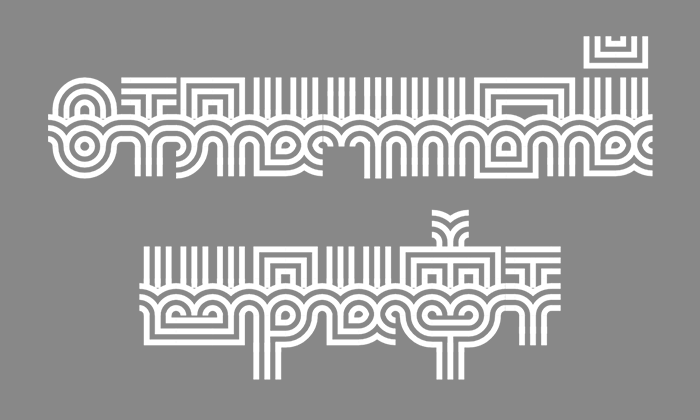
Pretty decolike font! Congrats on the TP.
Great work. Why did you choose to publish it outside of the competition? Congratulations on the special mention. 10/10
Wonderful work, such original and effective use of the connected bricks! The letters are beautifully connected and have a sense of layered depth to them.
Wooooooooow